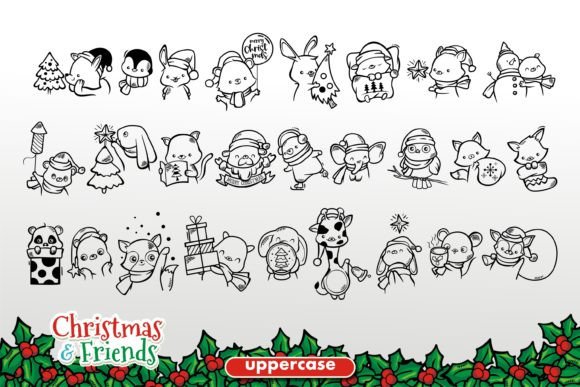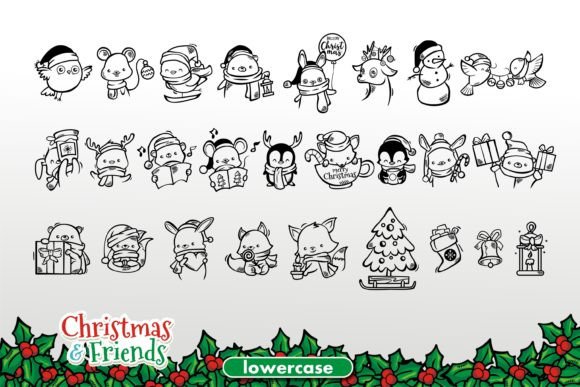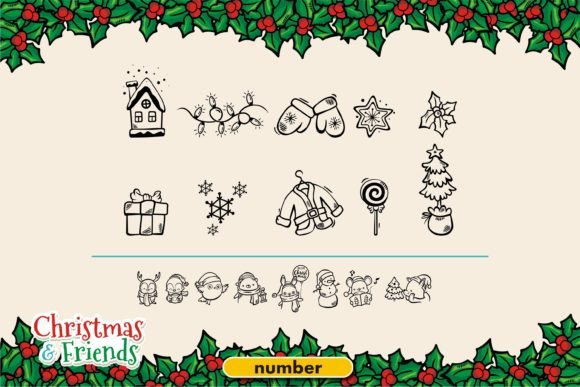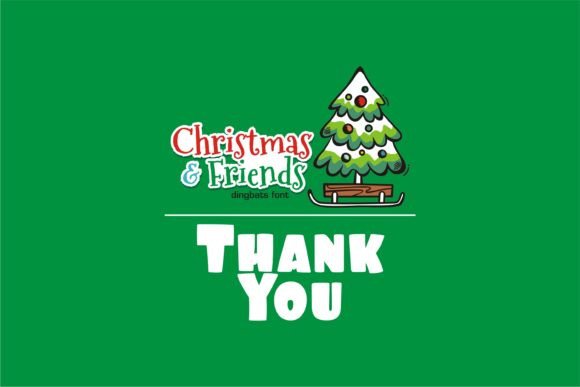
Introduction to Christmas and Friends Font
Christmas and friends brings together a stunning set of Christmas-themed dingbats, making it the perfect font for winter crafts.
Is a sweet, festive and warm dingbats font .
Key Features of Christmas and Friends Font